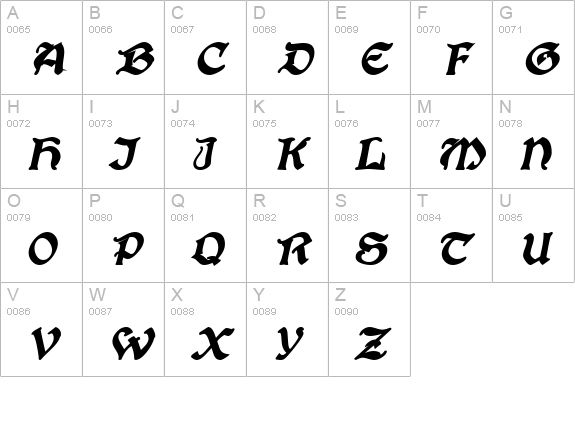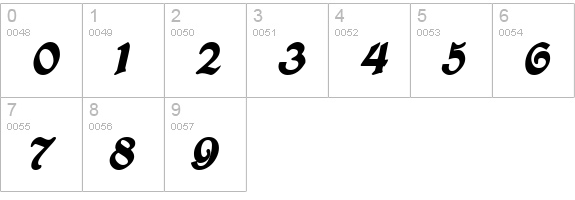
ConcordiaSSK BoldItalic Font Details
ConcordiaSSK BoldItalic font is a striking and versatile typeface that exudes modern sophistication and elegance. Its bold, italicized design makes a bold statement while maintaining a sense of refinement and style. Perfect for adding a touch of flair to any design project, from branding and advertising to invitations and signage. And the best part? ConcordiaSSK BoldItalic font is available for free download at FontsMarket.com. Simply head over to the website to access this stunning font and enhance your creative projects with its sleek and distinctive aesthetic. Don't miss out on the opportunity to elevate your designs with ConcordiaSSK BoldItalic font today!